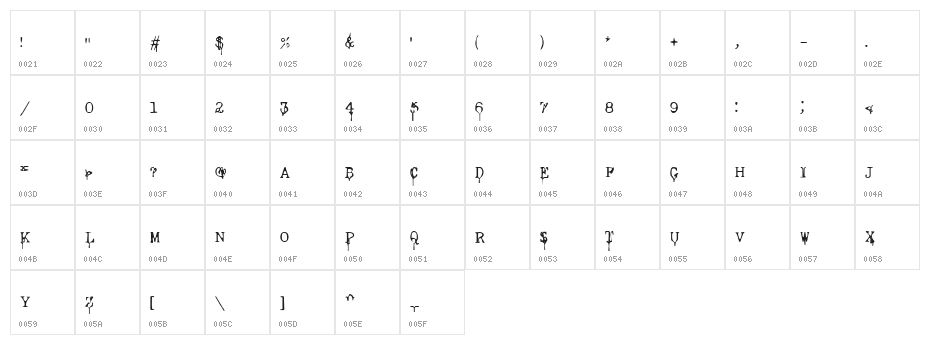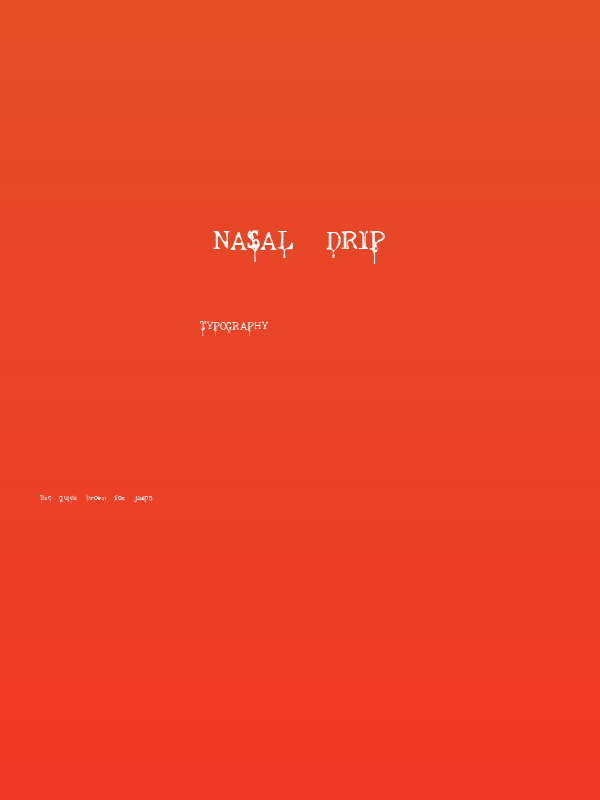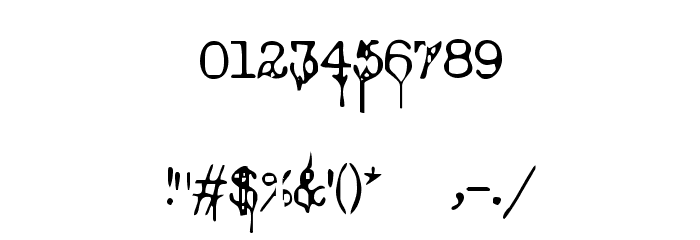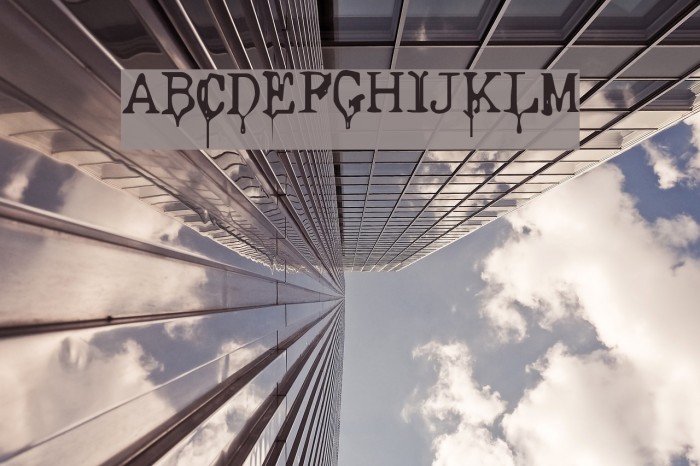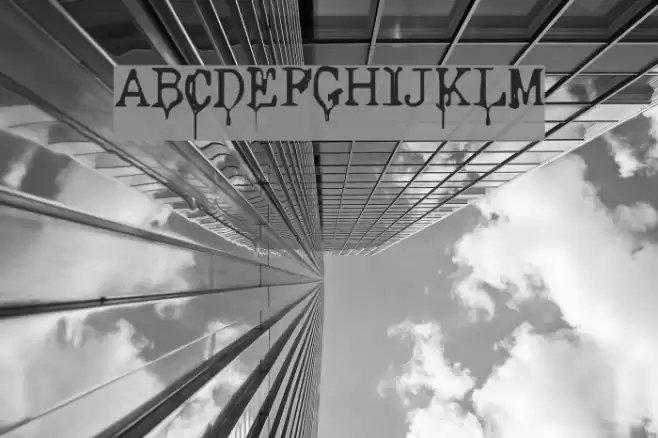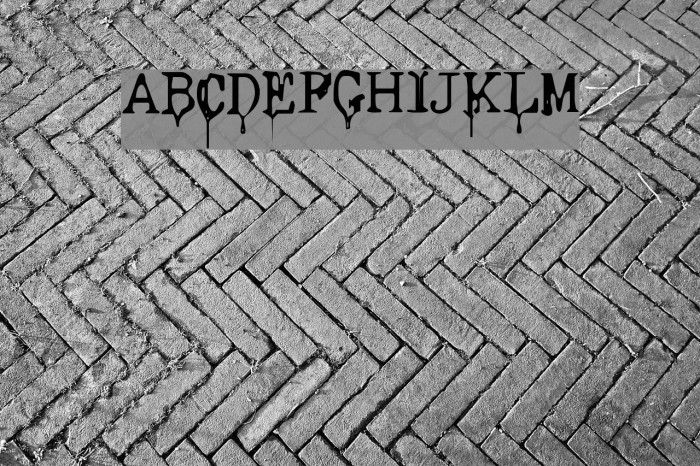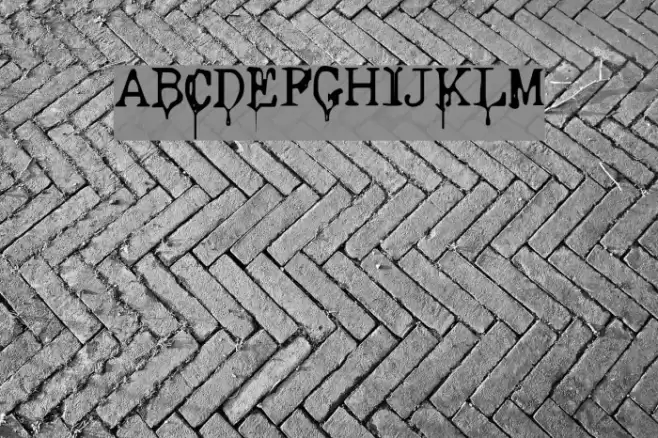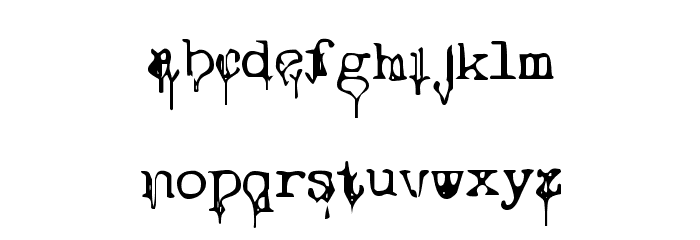
Nasal Drip Font
Nasal Drip Description
This font features a unique and edgy design with a dripping effect that gives it a grungy, rebellious look. The uppercase and lowercase letters, as well as numbers and special characters, appear as if they are melting or dripping, creating a visually striking appearance. The bold strokes and irregular shapes add to its distinctive style, making it stand out in any design. This font is perfect for projects that require a dramatic and unconventional aesthetic, such as horror-themed designs, music album covers, or edgy branding materials.
| Overall Style | Grunge, Edgy, Artistic |
| Proposed Projects | Ideal for horror-themed designs, music album covers, edgy branding, and artistic posters. |